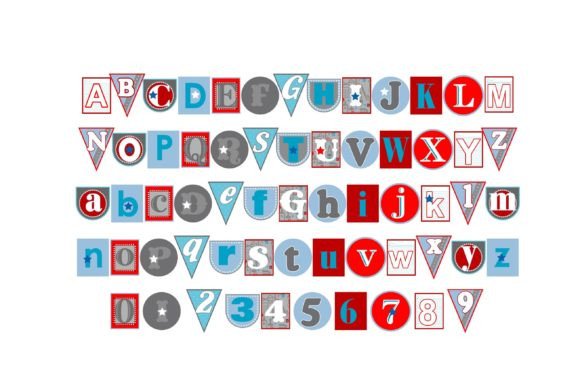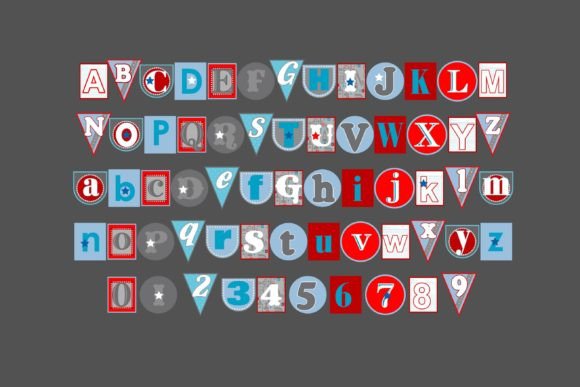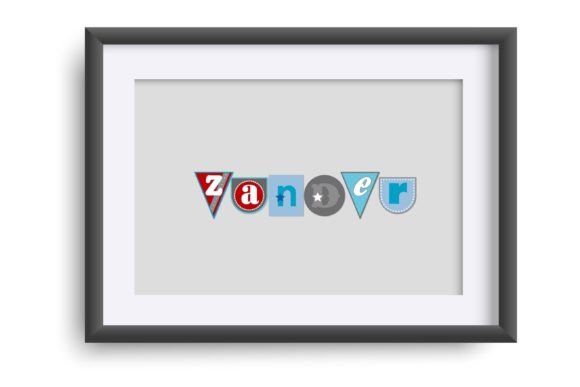
Introduction to Merican Medley Font
Have you ever been working on a creative project and wished you had the perfect font to make it stand out? I know I have. There’s something about the right font that can elevate an entire design from good to great. That’s why I’m excited to introduce you to the Merican Medley Font, a high-quality design resource that’s sure to become a favorite.
This full-color font is a true showstopper, featuring a mix of font styles in a patriotic color palette that’s perfect for any project that needs a little extra flair. Whether you’re designing titles, displays, posters, or more, the Merican Medley Font is the perfect choice. And with its transparent background and support for full-color SVG fonts, you can be sure that your design will look its best, no matter what program you’re using.
Key Features of Merican Medley Font
- High-quality design resource ideal for creative projects requiring a unique touch.
- Comes with a transparent background, allowing for seamless integration with various design elements.
- Unique characteristics include a blend of modern and vintage elements, creating a distinctive visual style.
- Perfect for designers seeking a versatile font to enhance their creative projects, from logos to typography-heavy designs.
Honest Review: Merican Medley Font
I recently came across the Merican Medley Font and I must say, it’s a great addition to any designer’s toolkit. As a design resource, this font offers a unique blend of styles that can elevate any creative project.
What works well with the Merican Medley Font is its versatility. You can use it for a variety of designs, from casual to formal, and it will still look great. The high quality of the font ensures that it will print well, even at large sizes.
Pros:
- High quality design
- Transparent background for easy use
- May not be suitable for extremely formal or professional designs
- Limited character set compared to other fonts
- Not suitable for designs that require a lot of bold or condensed text
Overall, I’m really impressed with the Merican Medley Font. It’s a great
The Merican Medley Font is perfect for creating headings and titles in creative projects, such as branding materials, social media graphics, and advertising campaigns. Its high quality and unique design make it an ideal choice for anyone looking to add some personality to their work.